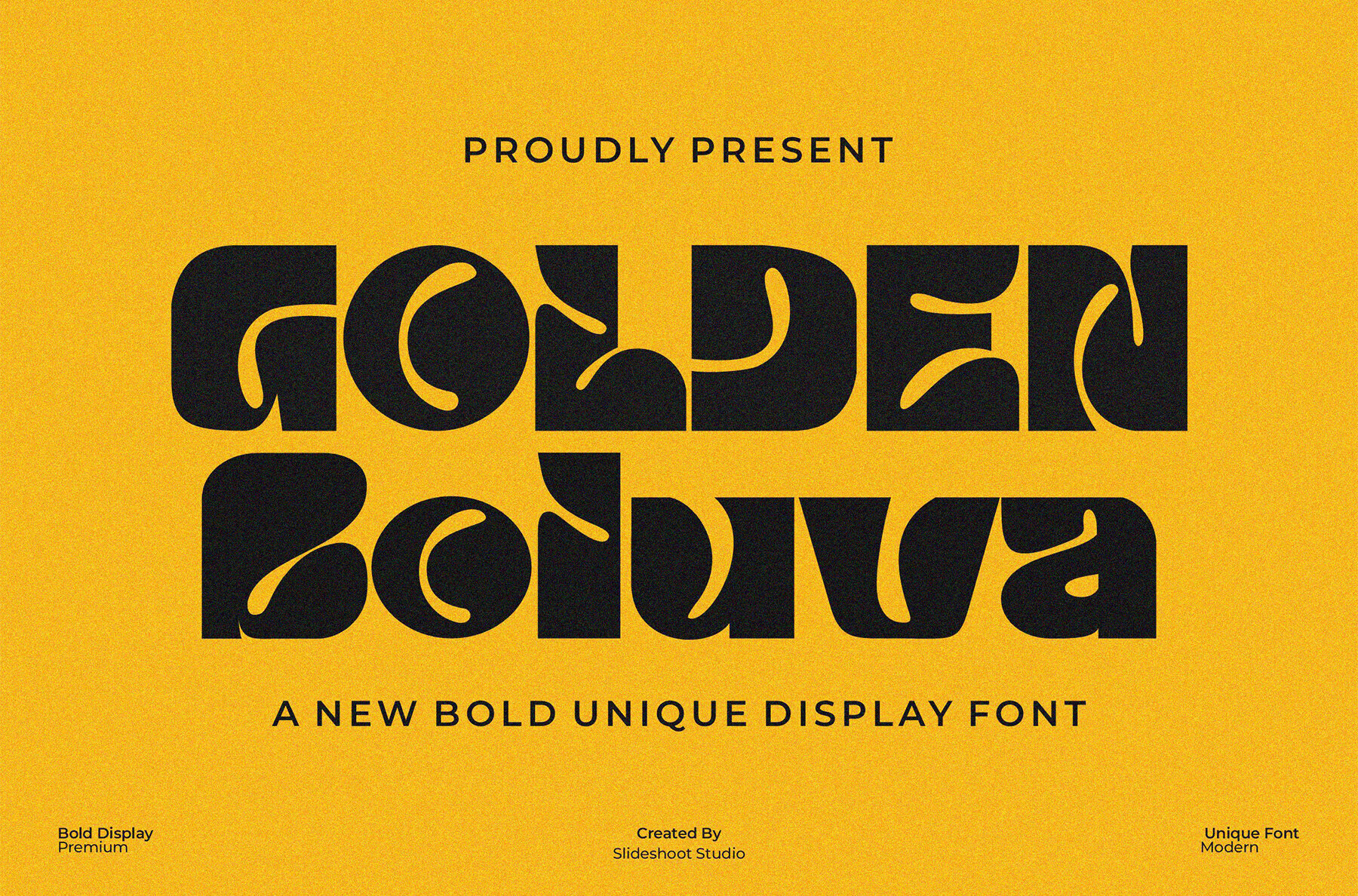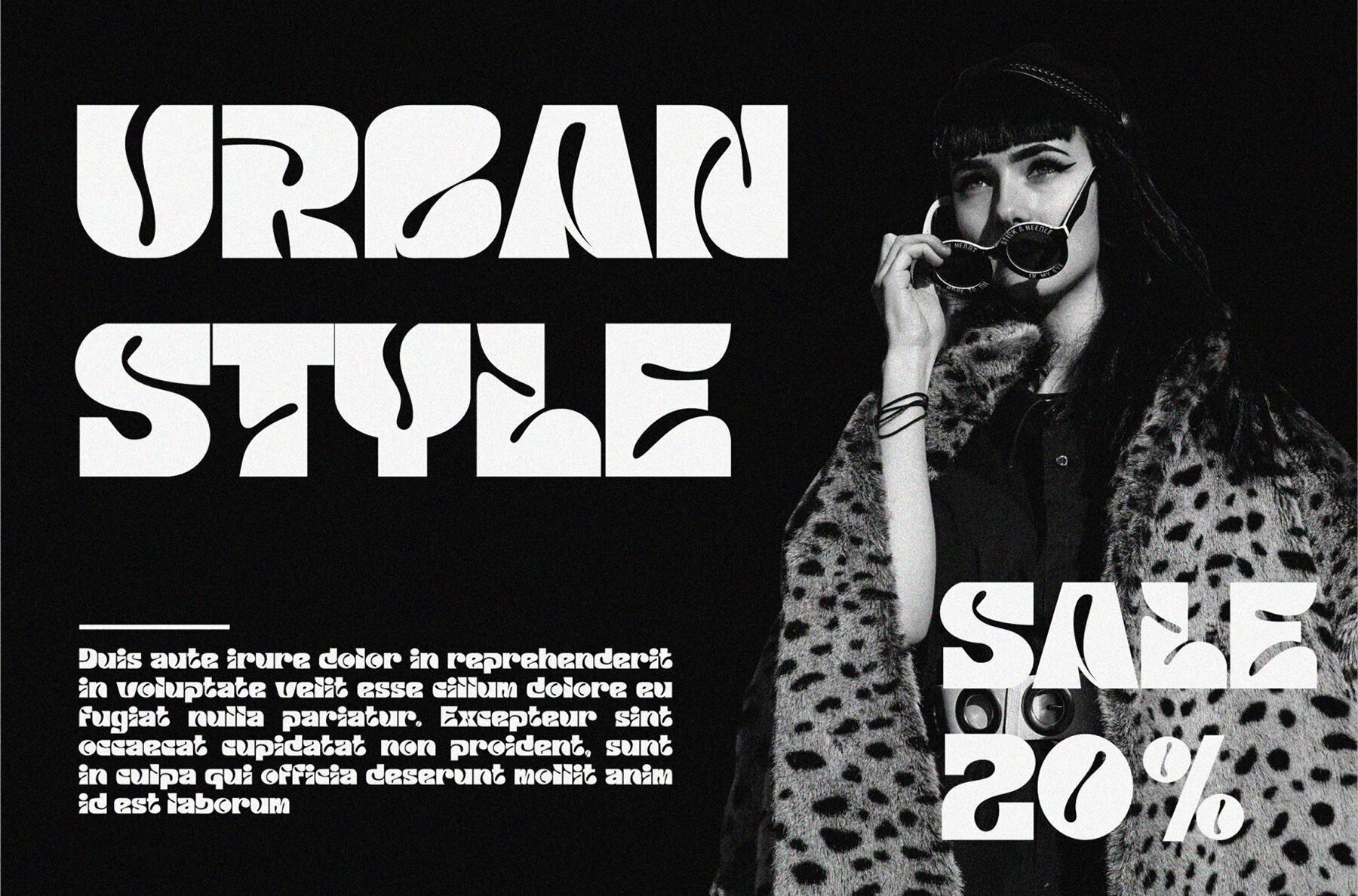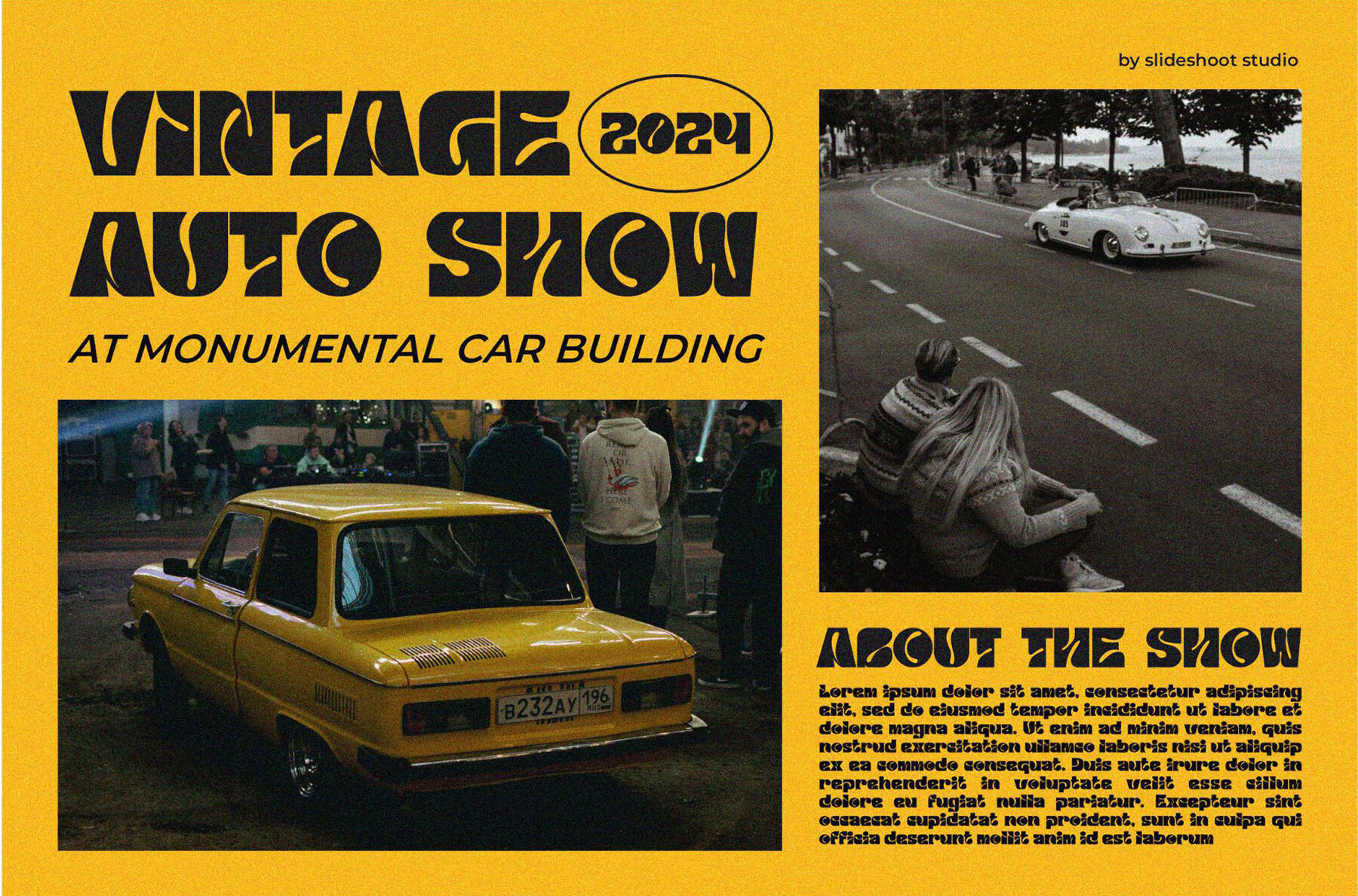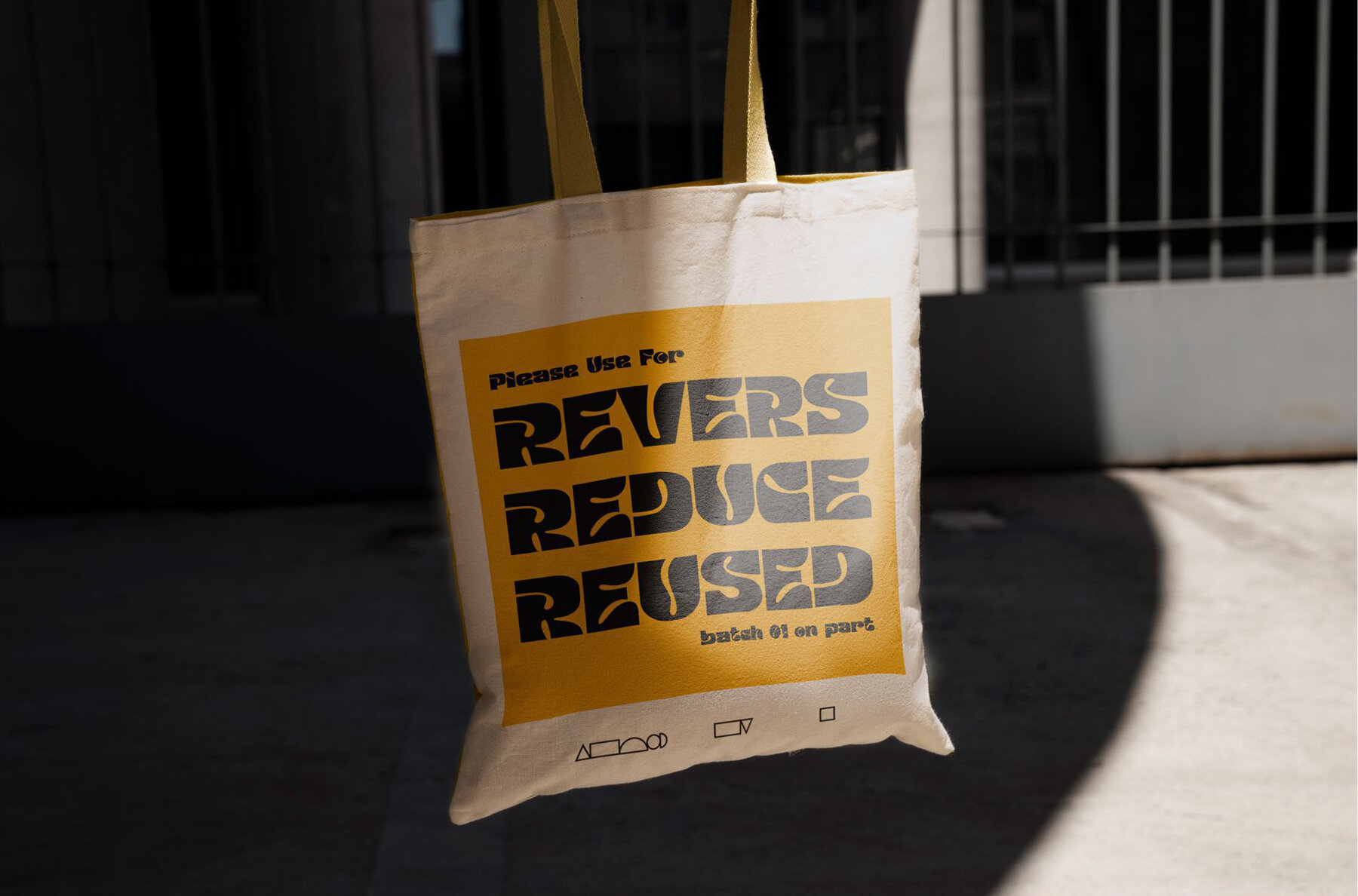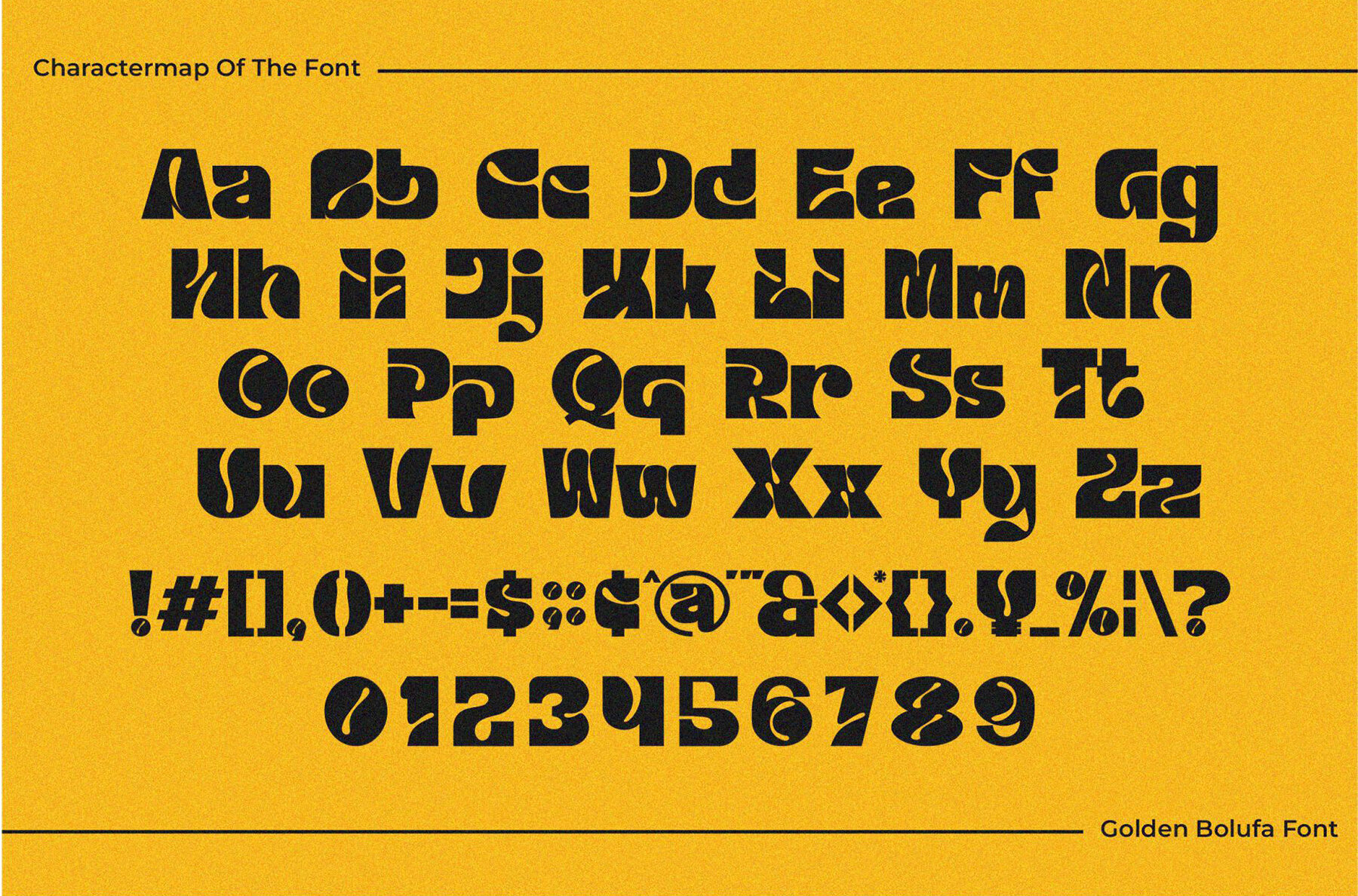
Golden Boluva
Golden Boluva is a sophisticated modern display font designed for flexibility in usage. Its clean and minimalist style makes it an excellent choice for logos, headlines, posters, and packaging. Available in three distinctive weights, it offers numerous opportunities to create unique and versatile designs.
With Golden Boluva, the possibilities are vast, limited only by your creativity. The font’s elegance and simplicity allow for seamless integration into various design projects, ensuring that your work stands out with refined clarity.